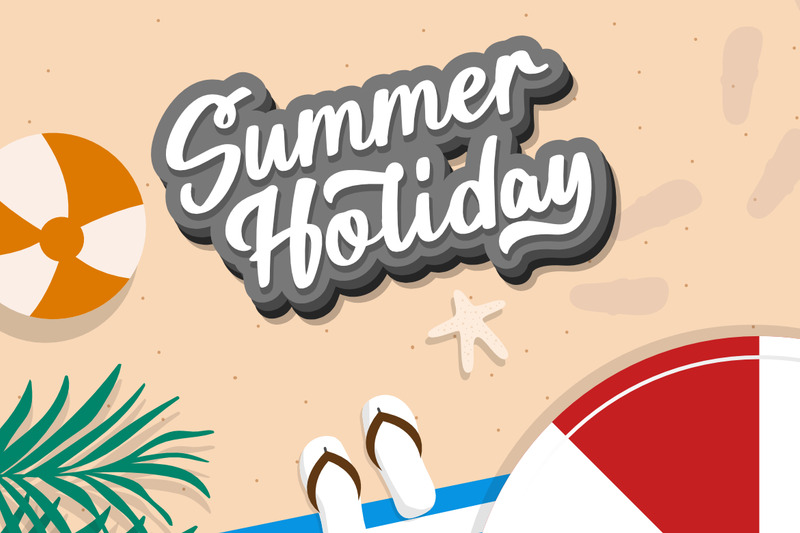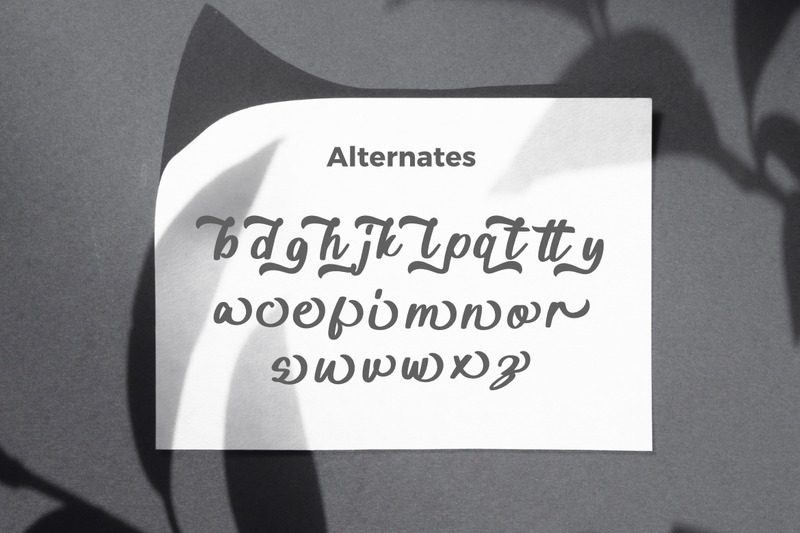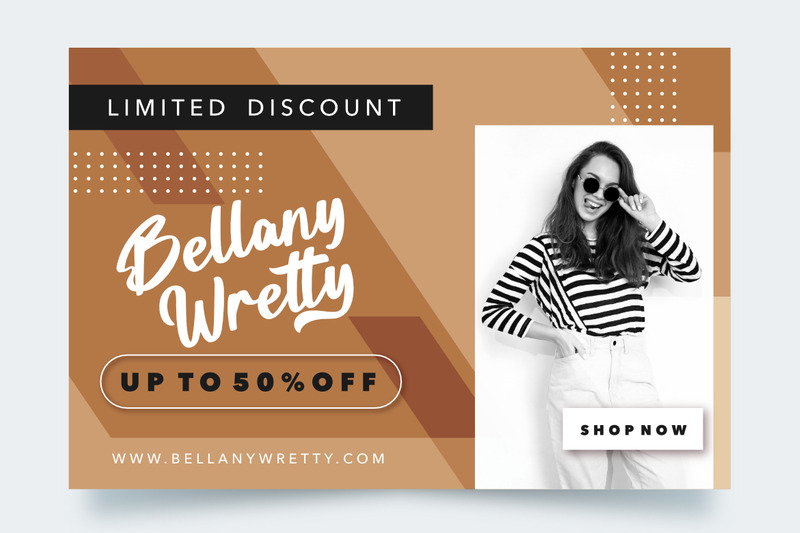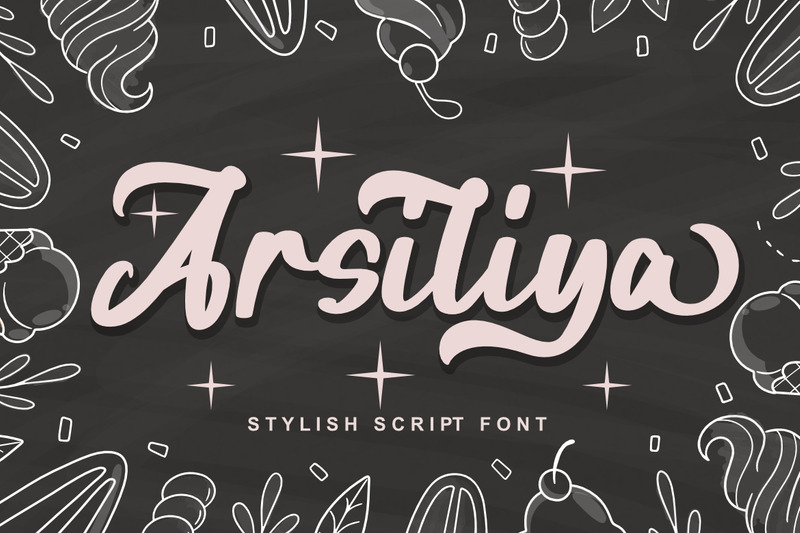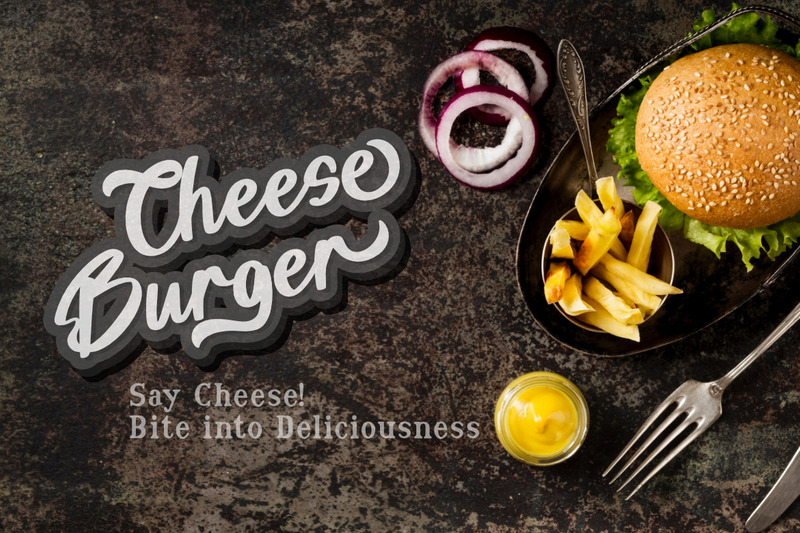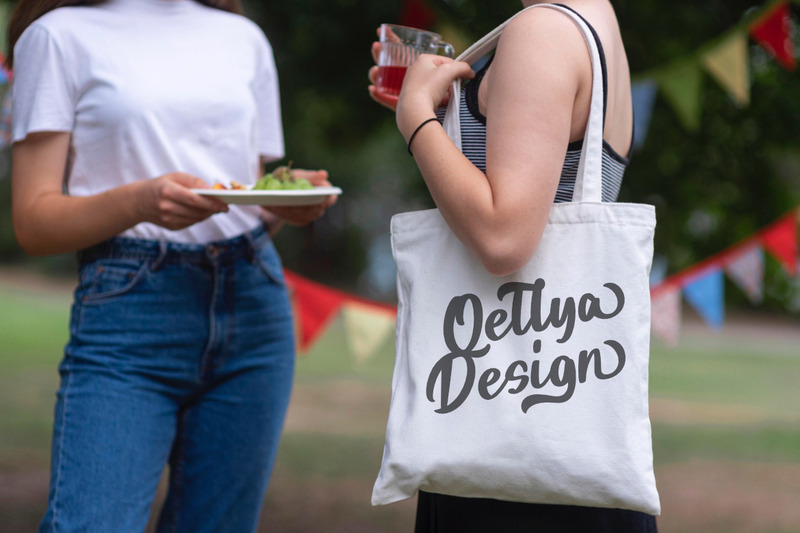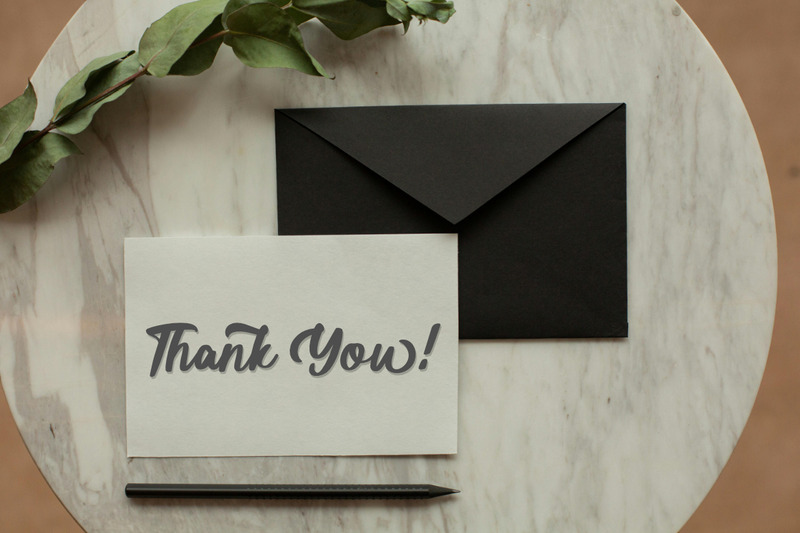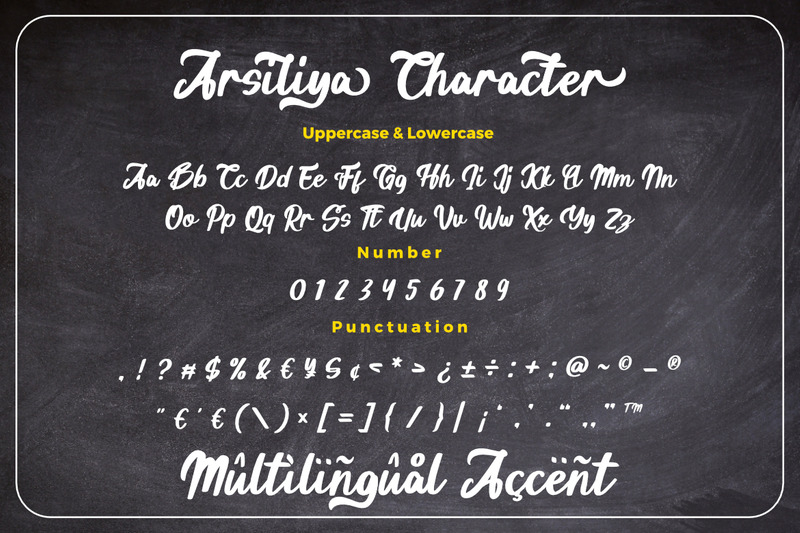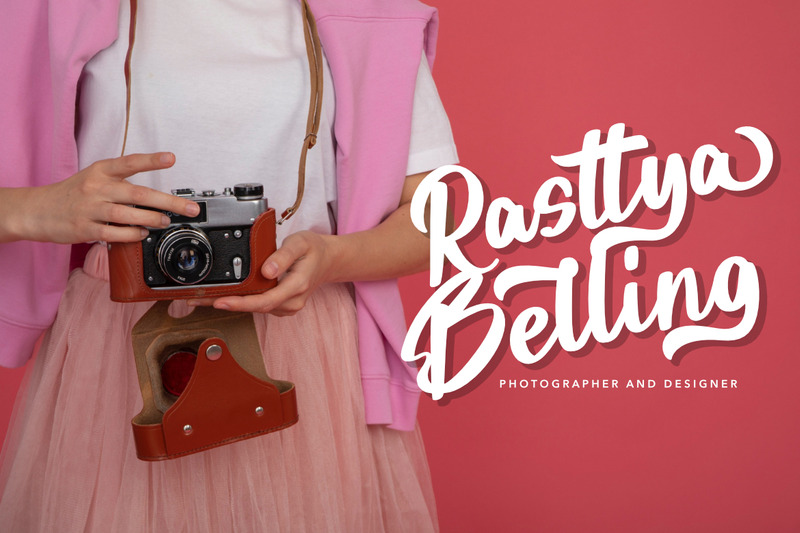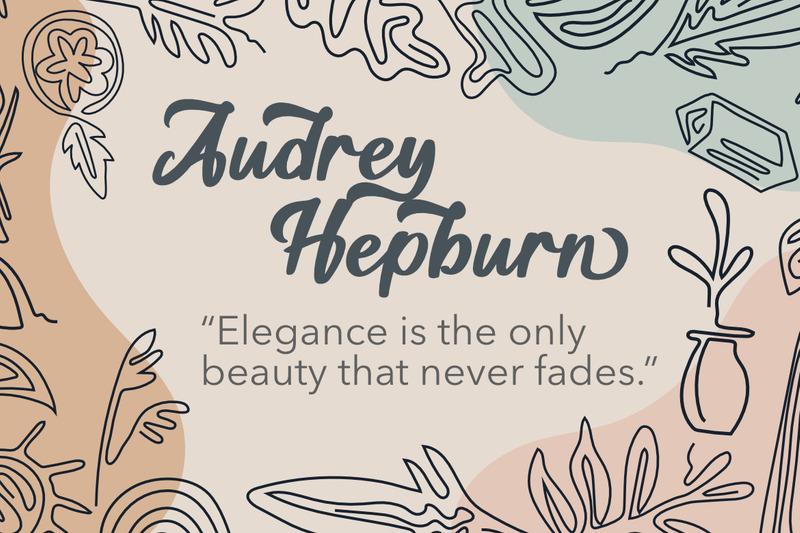
Arsiliya Stylish Script Premium Font
**Arsiliya a Stylish Script Font**, This font is made with a high premium quality level which you can use as flyers, quotes, posters, banners, packaging, merchandise, logotypes and much more.
* Uppercase
* Lowercase
* Number
* Punctuation
* Multilingual